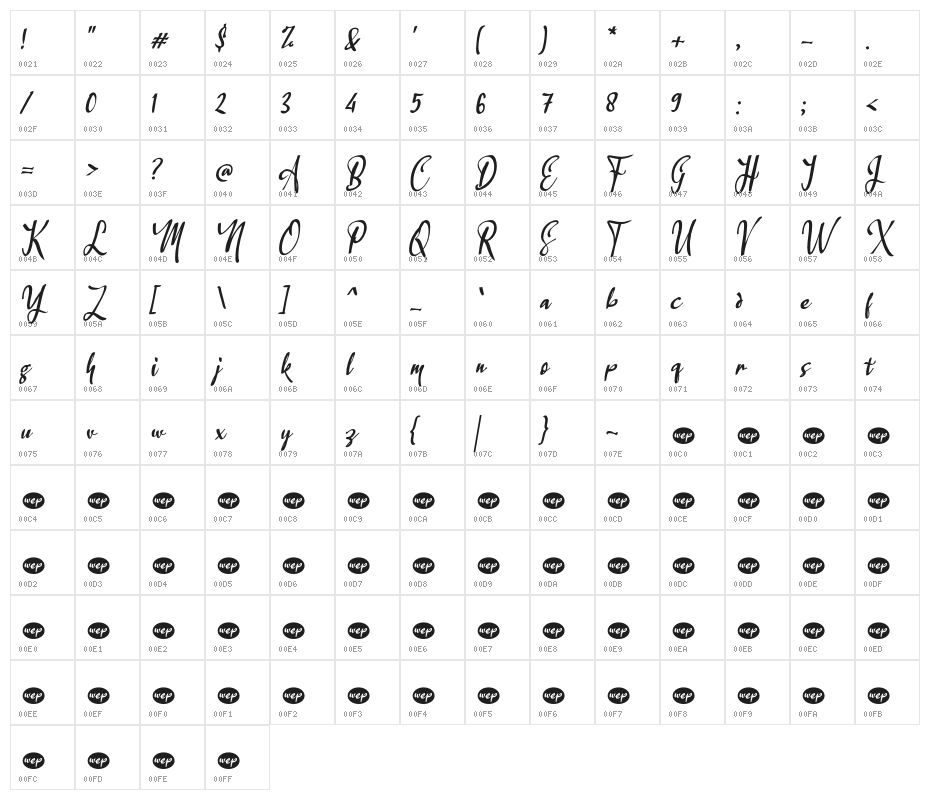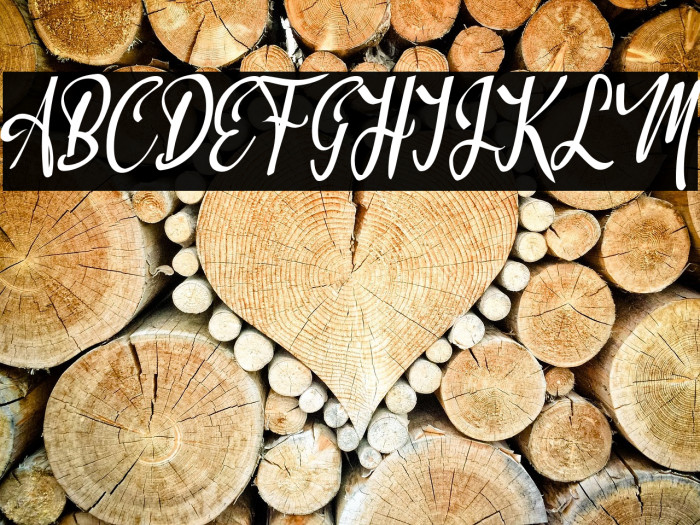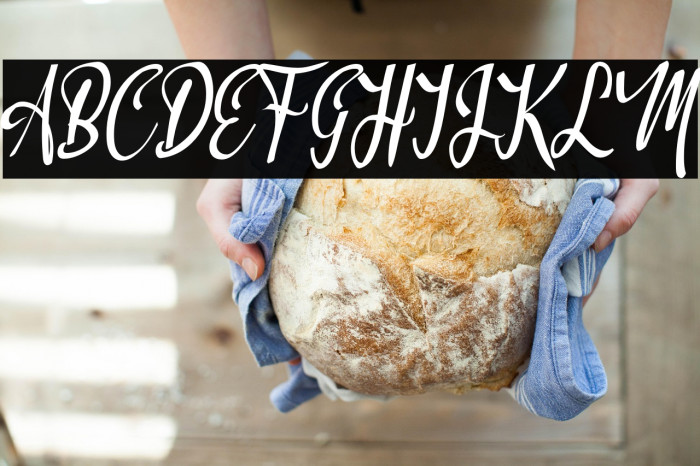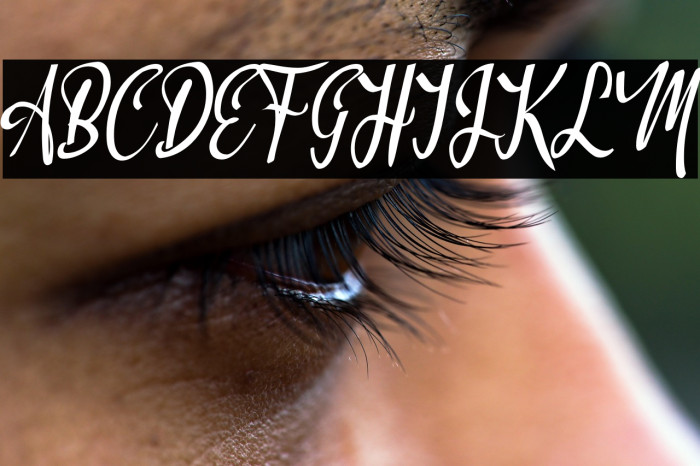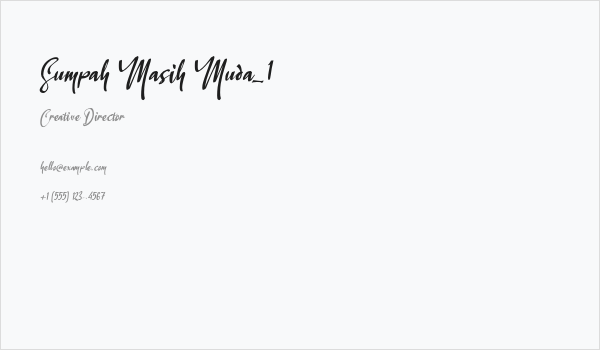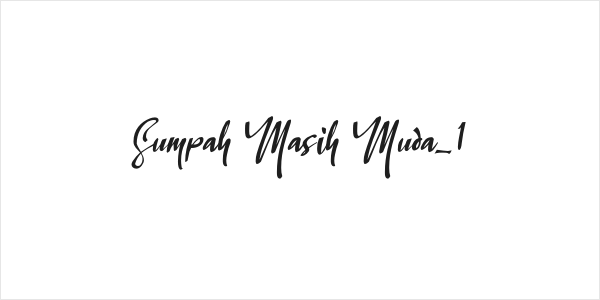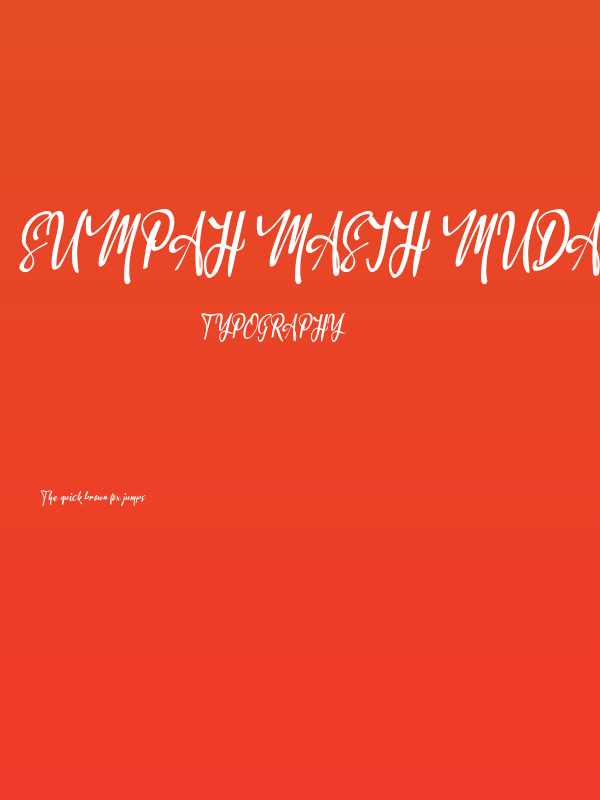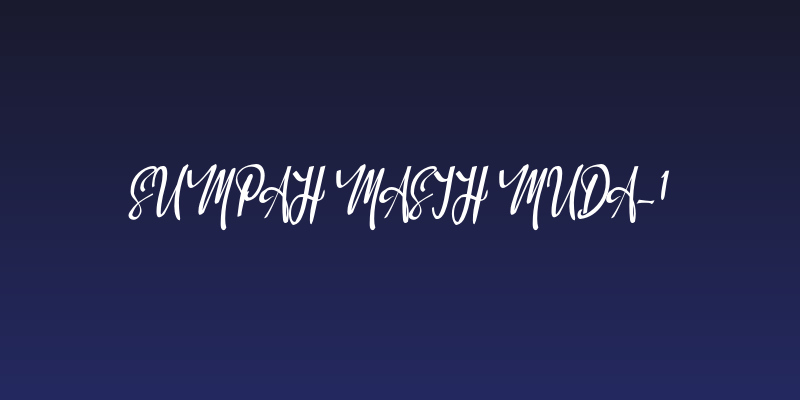
Sumpah Masih Muda_1 Font
Sumpah Masih Muda_1 Description
This font exudes a dynamic and expressive style, characterized by its fluid, cursive script. The letters are elegantly connected, creating a sense of movement and rhythm. The uppercase letters are bold and sweeping, with dramatic flourishes that add a touch of sophistication. The lowercase letters maintain a consistent flow, with some characters featuring unique loops and curves that enhance the font's artistic appeal. The numerals are equally stylish, maintaining the overall aesthetic with their curvaceous forms. Special characters are thoughtfully designed to match the font's lively and creative essence.